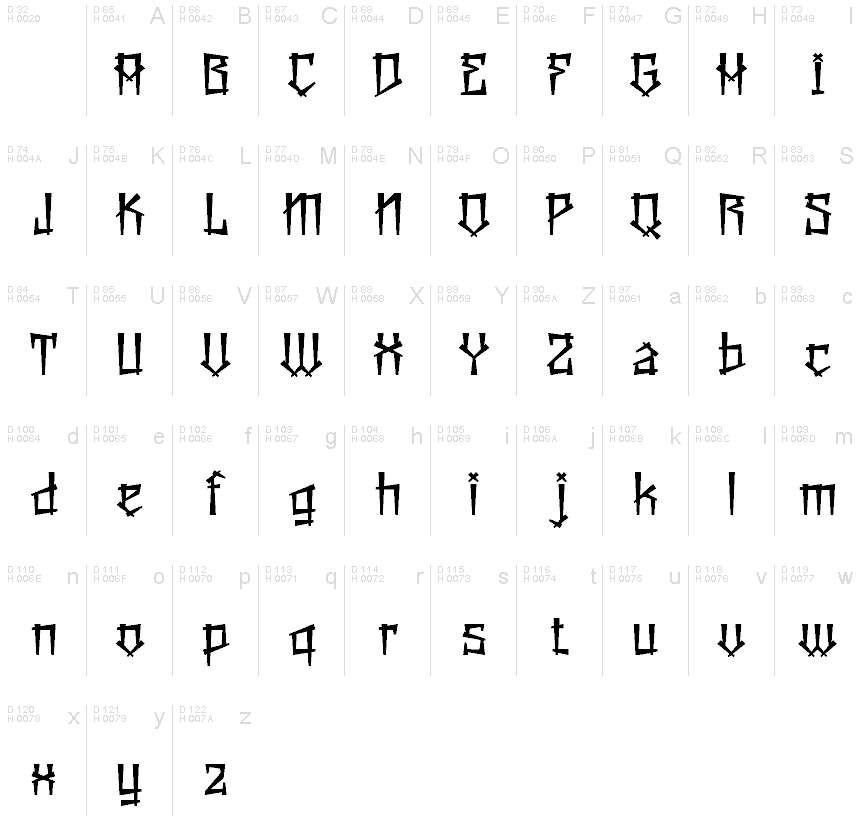
CS Kenshin Regular Demo
CS Kenshin font by Craft Supply Co. stands out with its angular sharp shapes and geometric design that create a modern, edgy, and unconventional look. The display typography has wide letter-size proportions that additionally contribute to the uniqueness of this free font designed for attention-drawing use.
CS Kenshin can be used for different branding projects, logos in particular, as well as in packaging labels for any product type. It will also fit in headlines or on signage and poster designs with different content types added to book covers or social media posts.